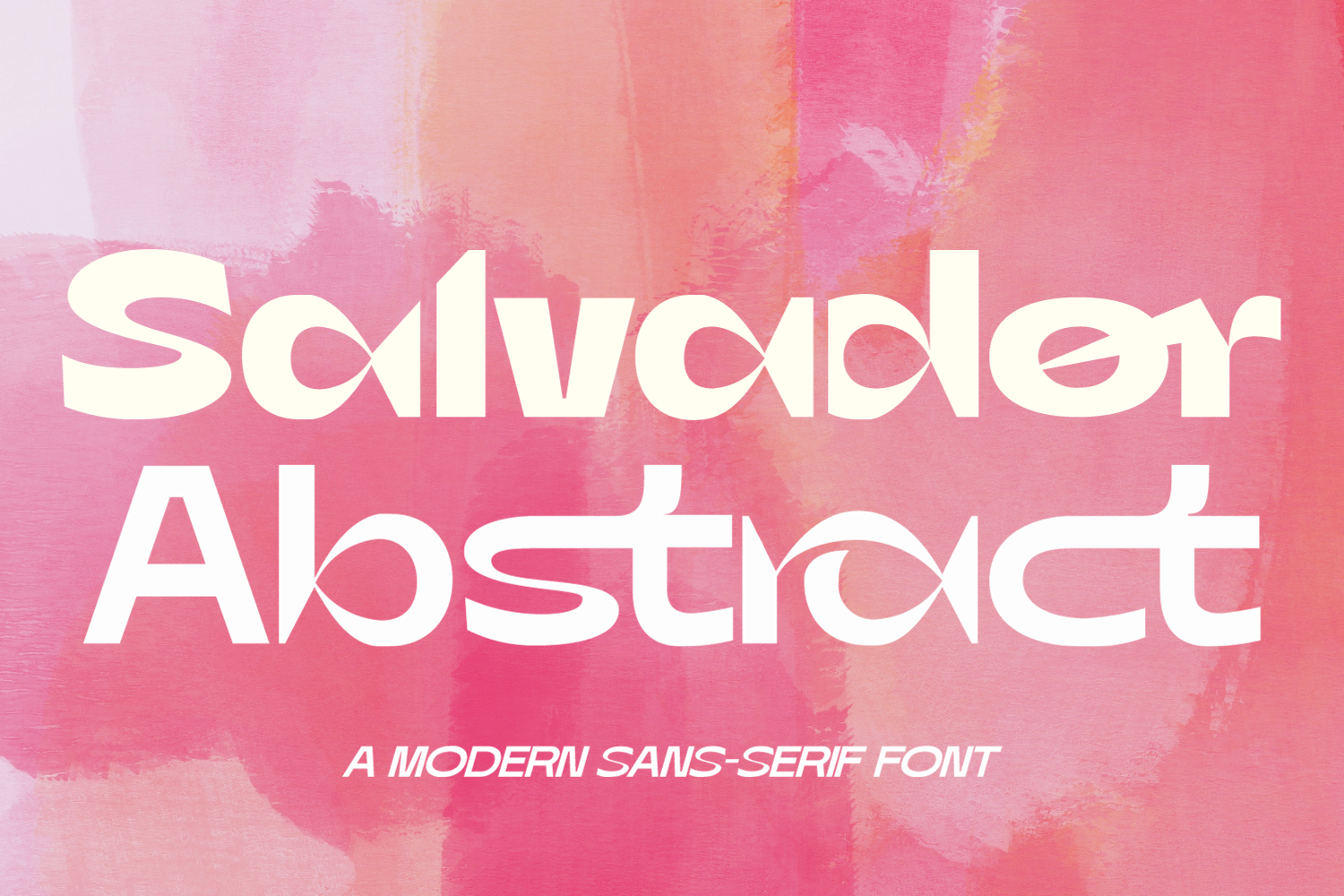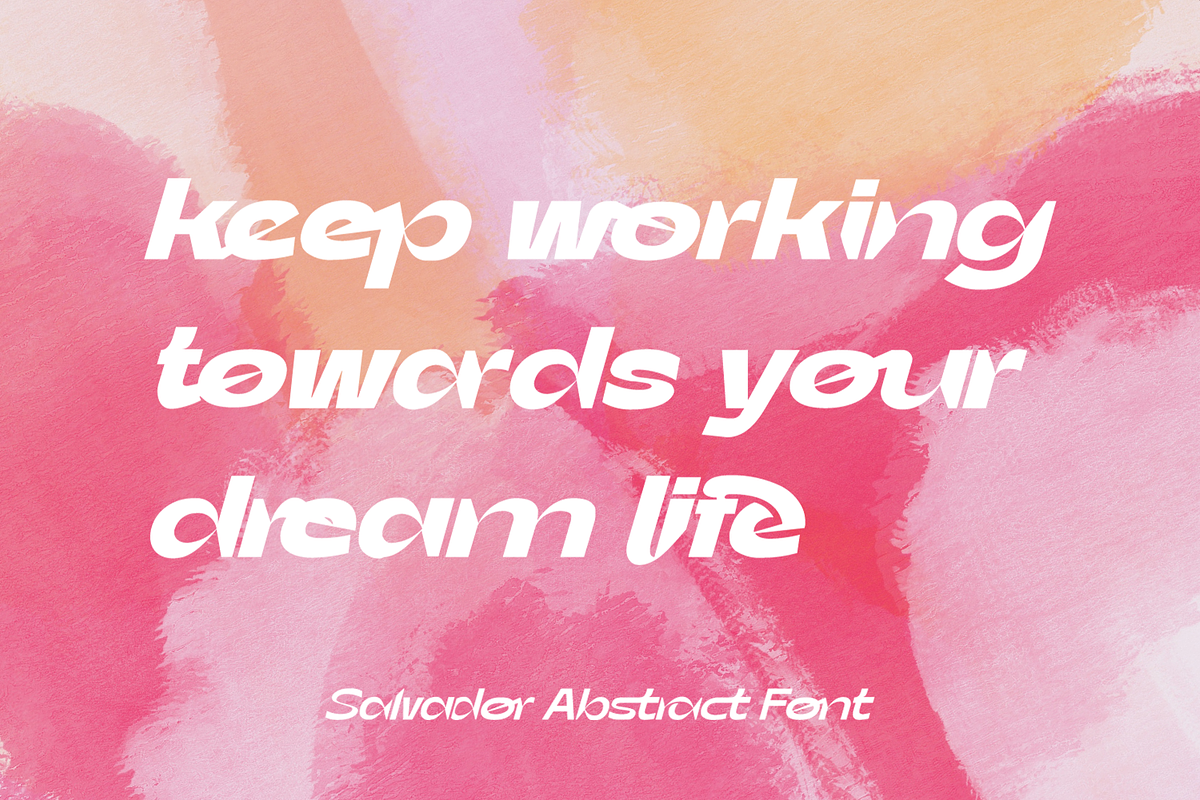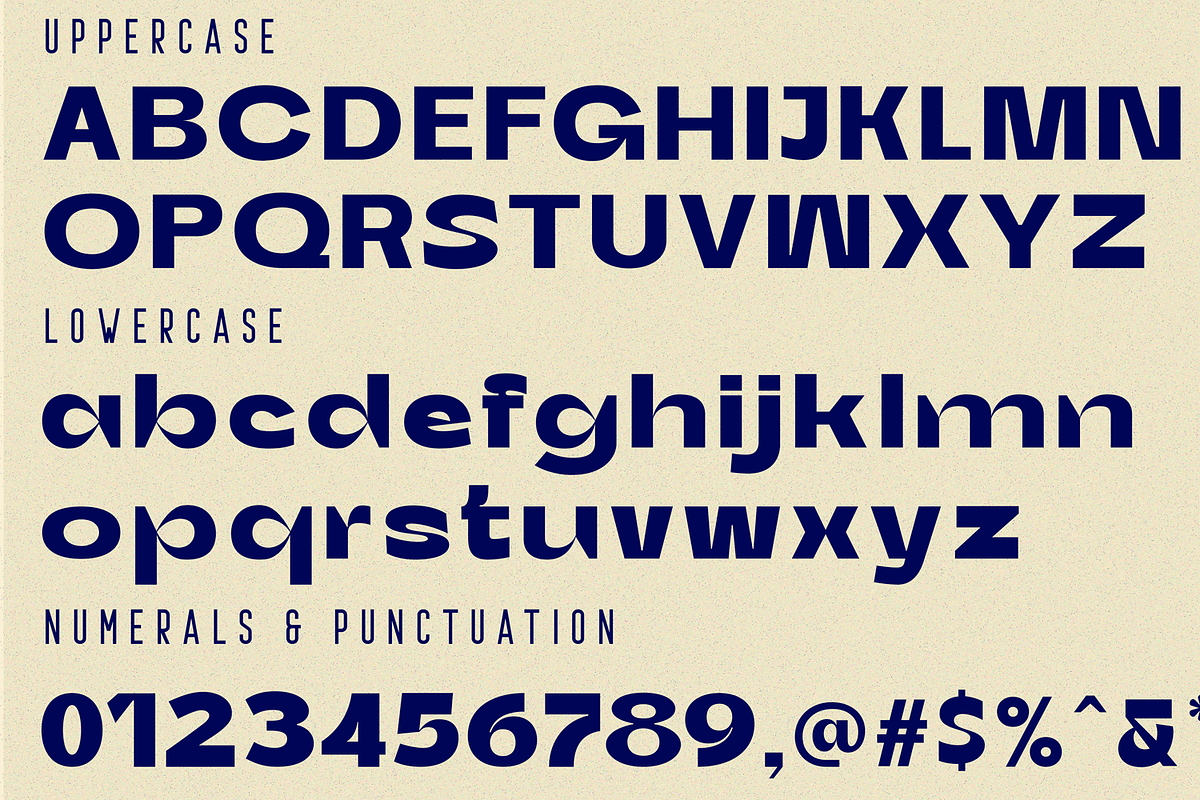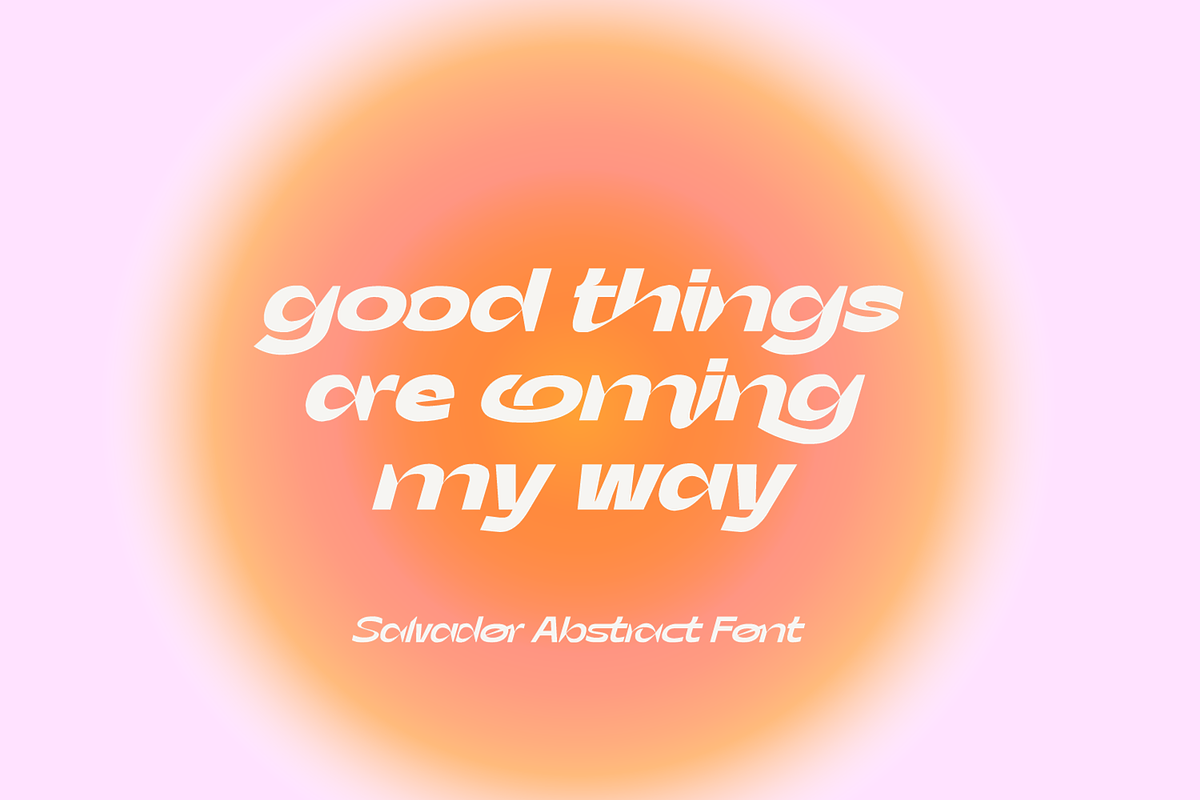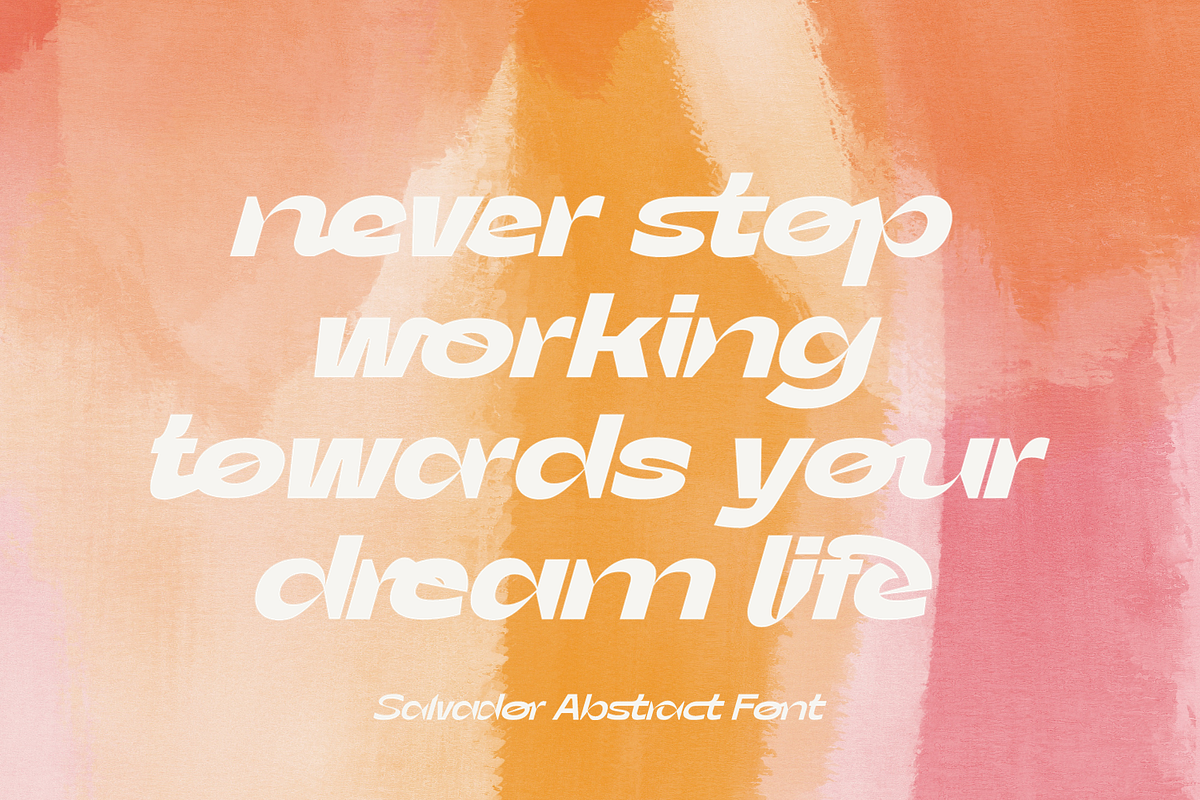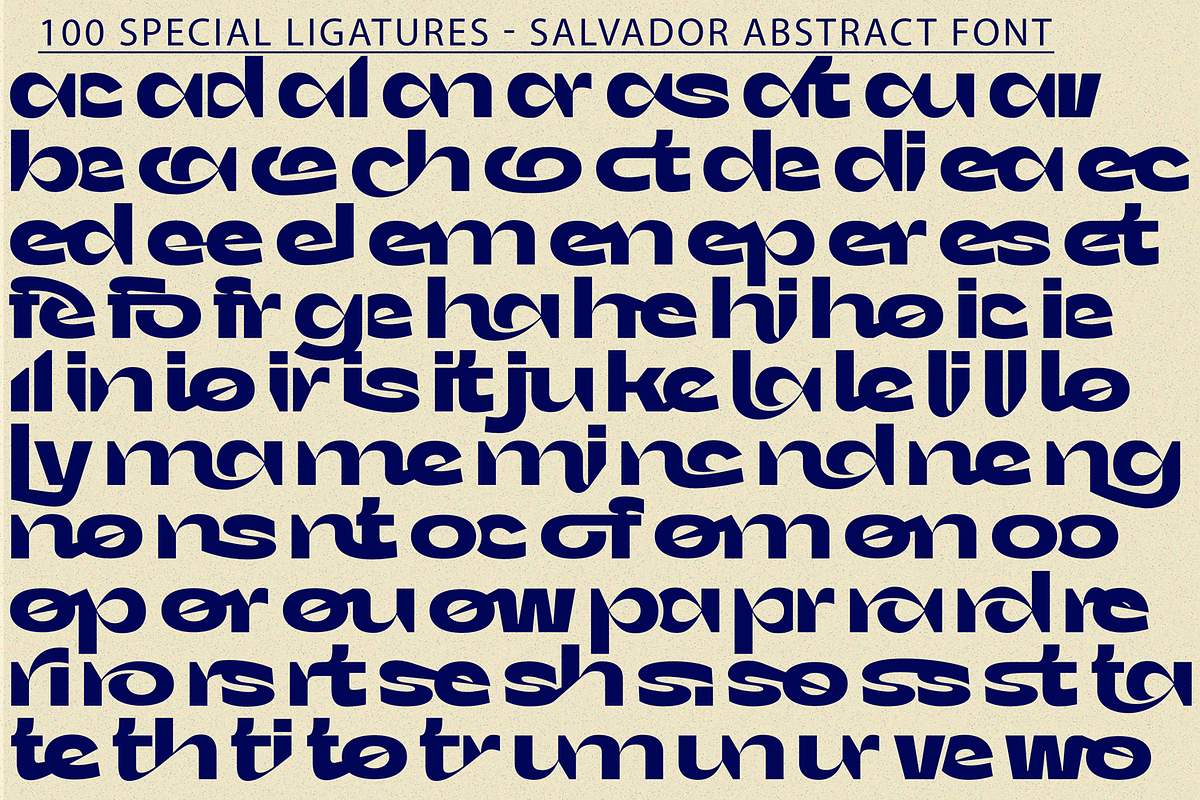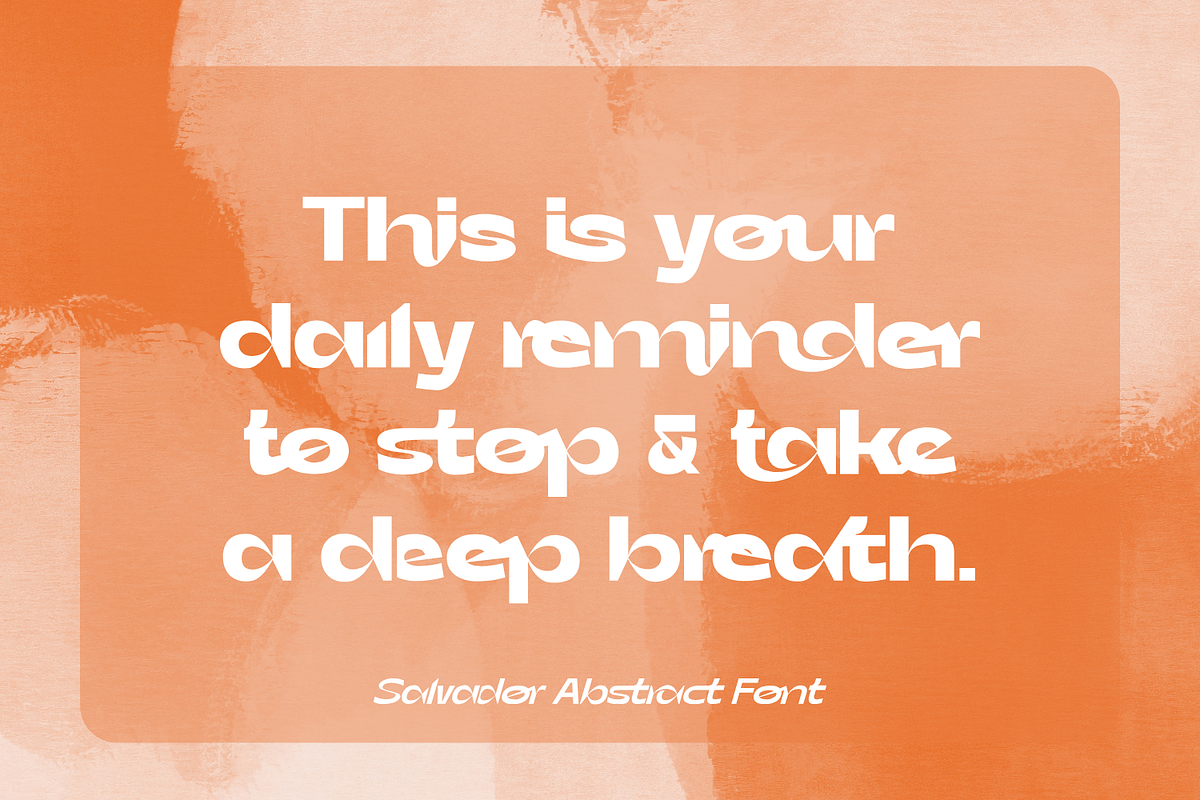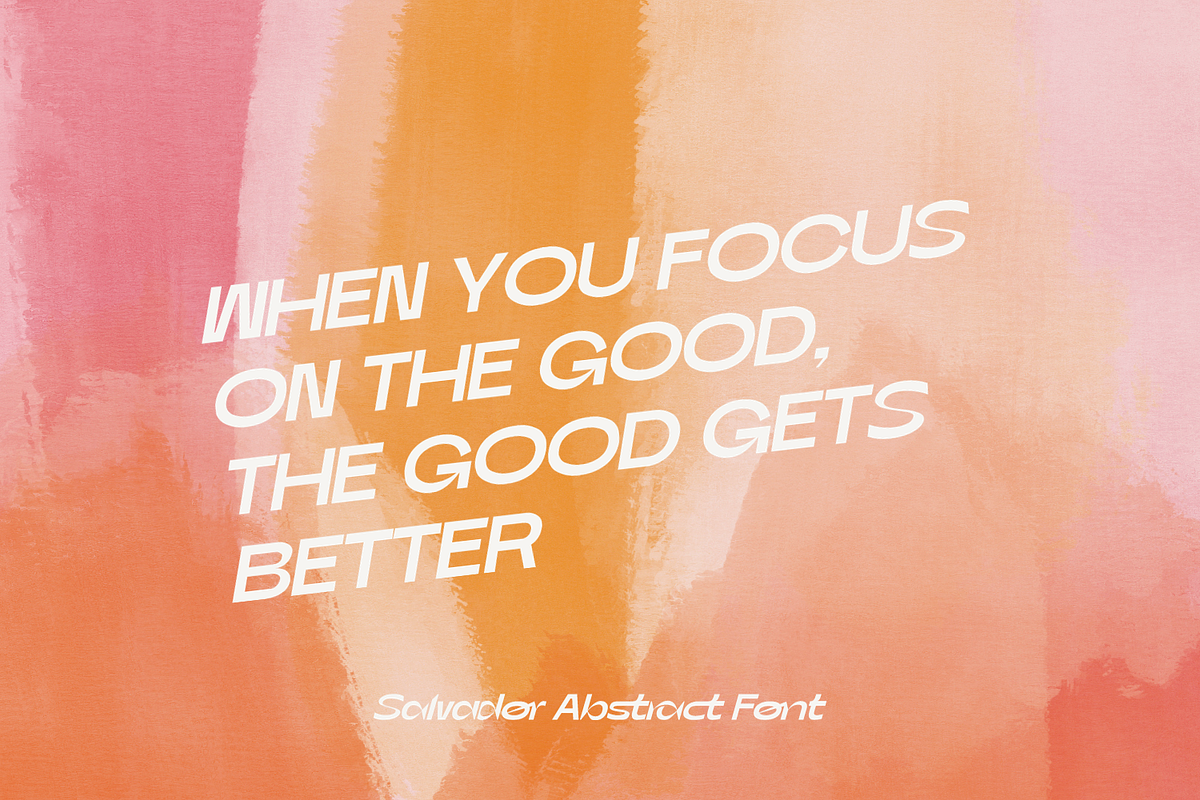
Salvador Abstract Font
Salvador Abstract Font is a chunky sans serif display font with exaggerated ink trap features. It has a high contrast appearance. It carries an overall bold look, while also featuring some thin crossbars and components that help it pop in large sizes. It's designed for projects that call for a bold statement as well as a shift in mood to a delicate sophistication with her lighter weight – whether it's a chic brand identity, a bold magazine layout, or a striking web design.
Salvador Abstract was built with OpenType features and includes 100 ligatures, alternate, numbers, punctuation, and it also supports other languages.
ac ad al an ar as at au av be ca ce ch co ct de di ea ec ed ee el em en ep er es et fe fo fr ge ha he hi ho ie ic il in io ir is it ju ke la le li ll lo ly ma me mi nc nd ne ng no nt ns oc of om on oo op or ot ou ow pa pr ra rd re ri ro rs rt se sh si so ss st ta te th ti to tr tt um un ur ve wi wo